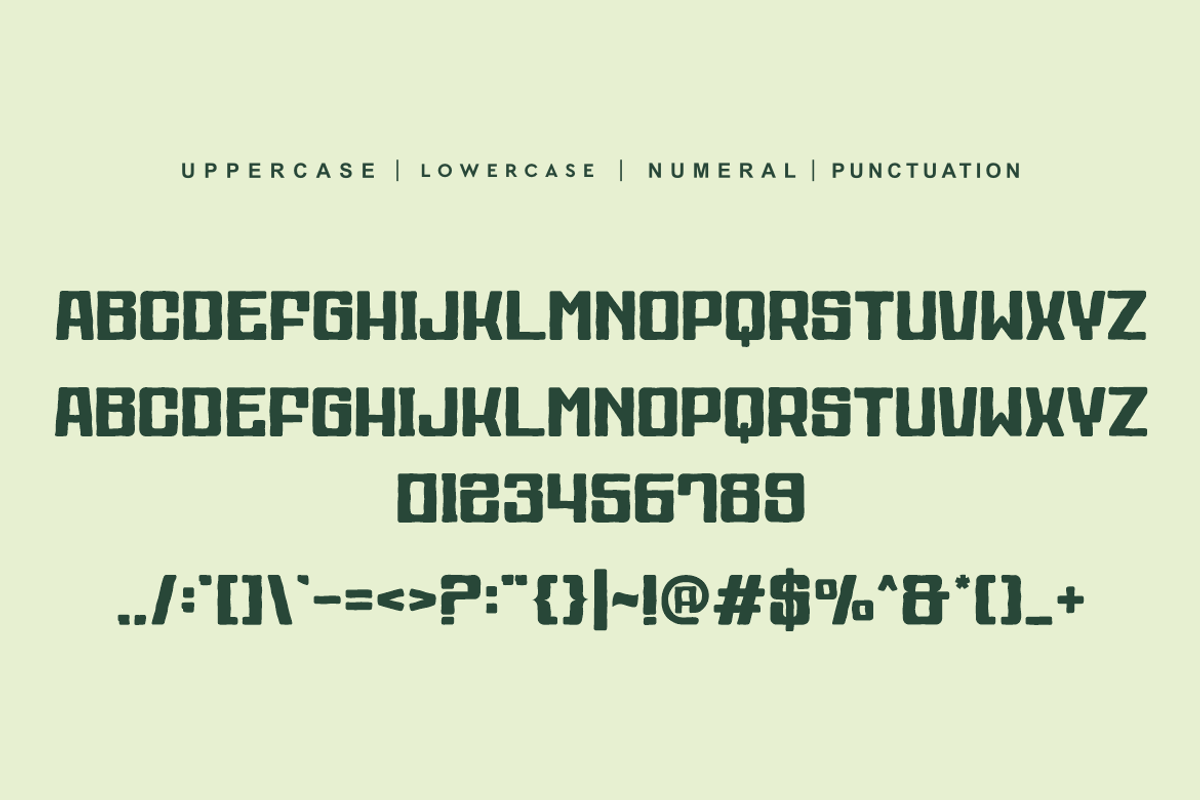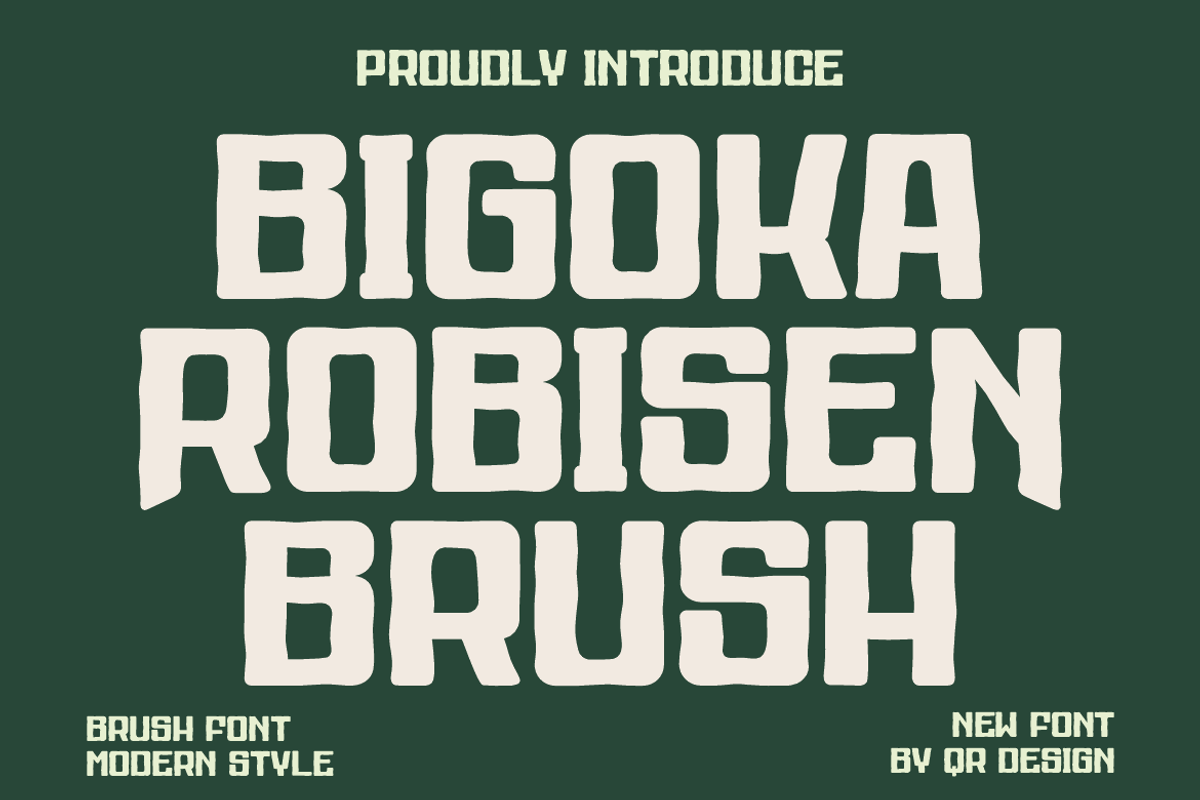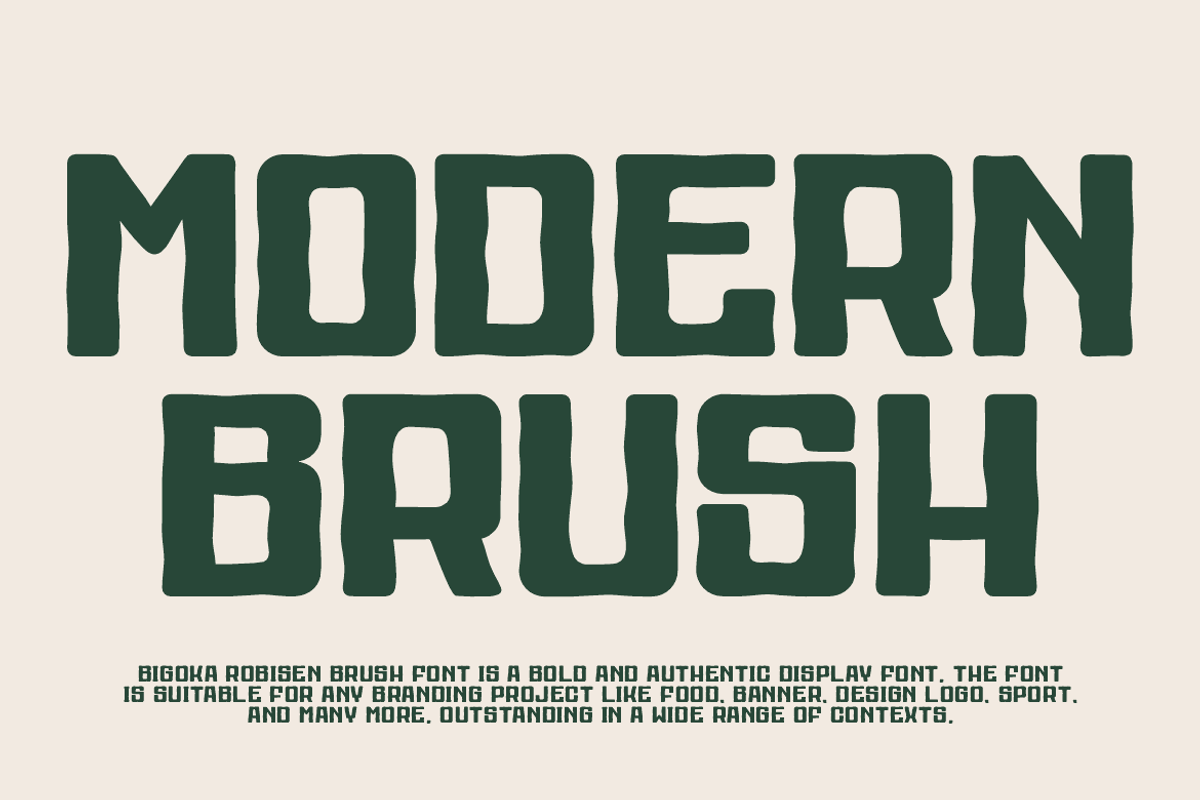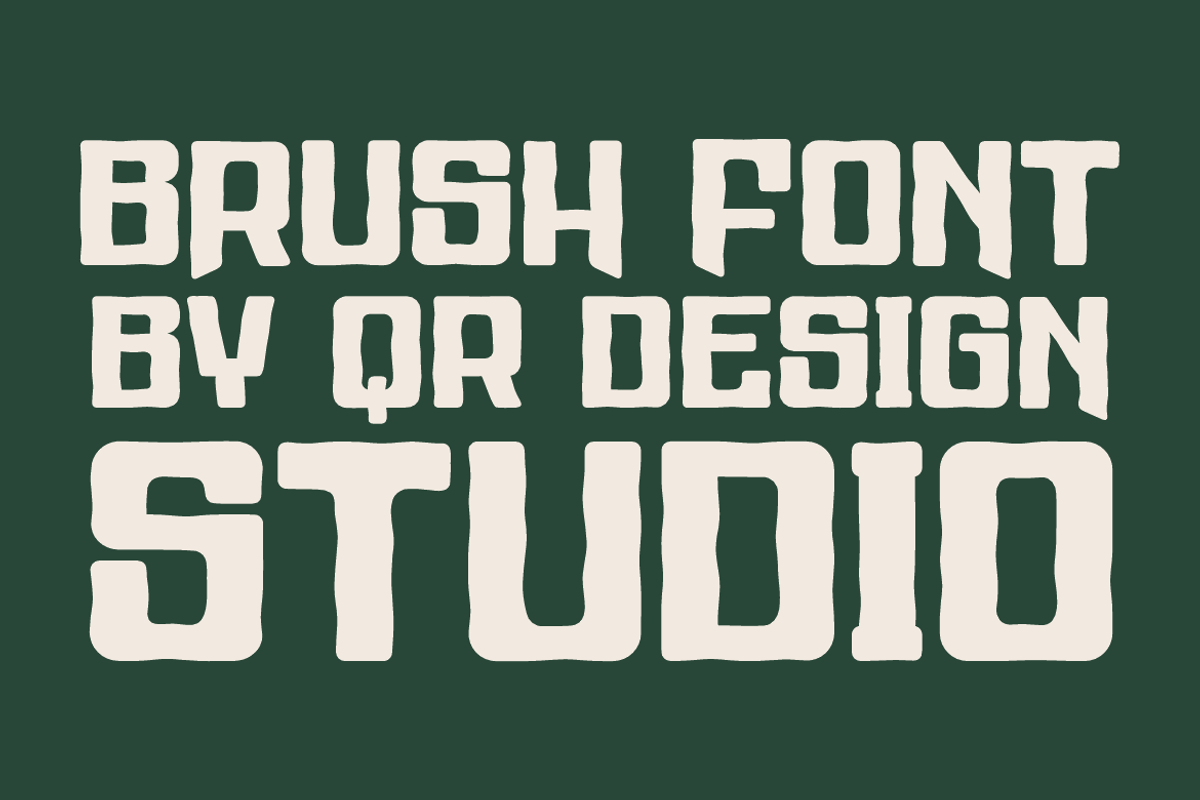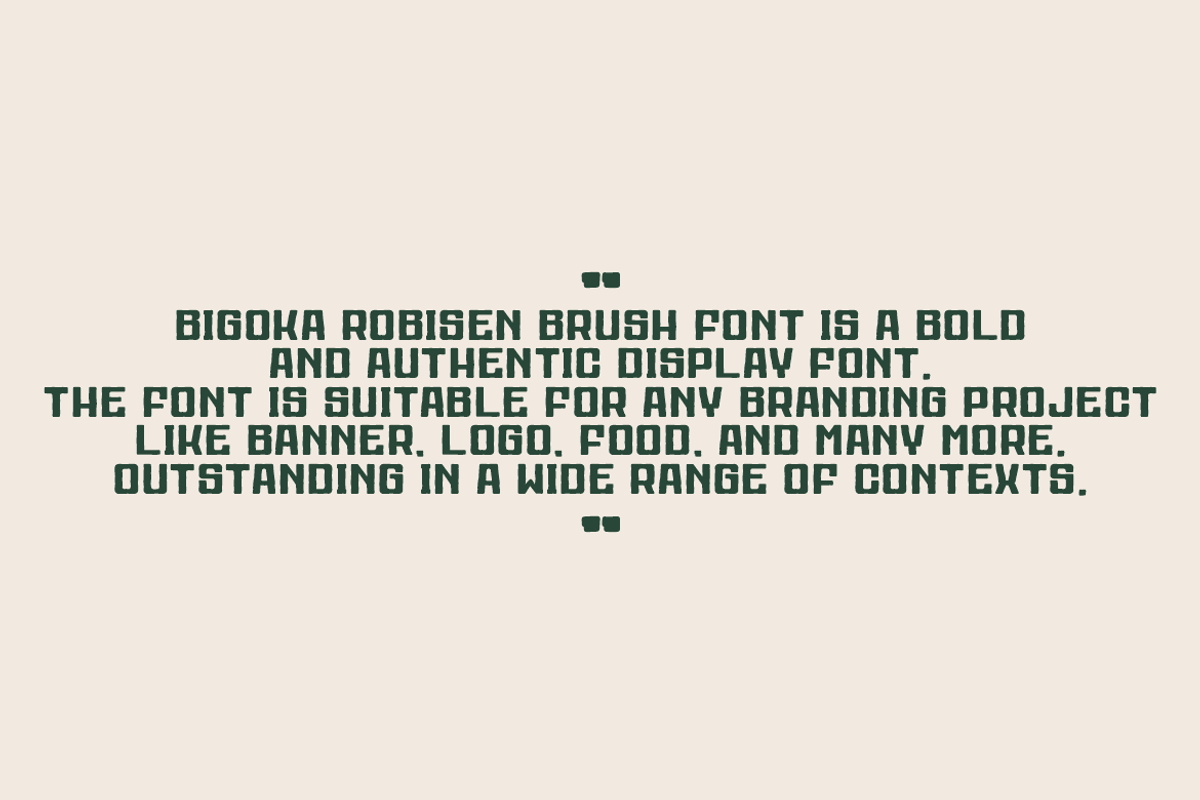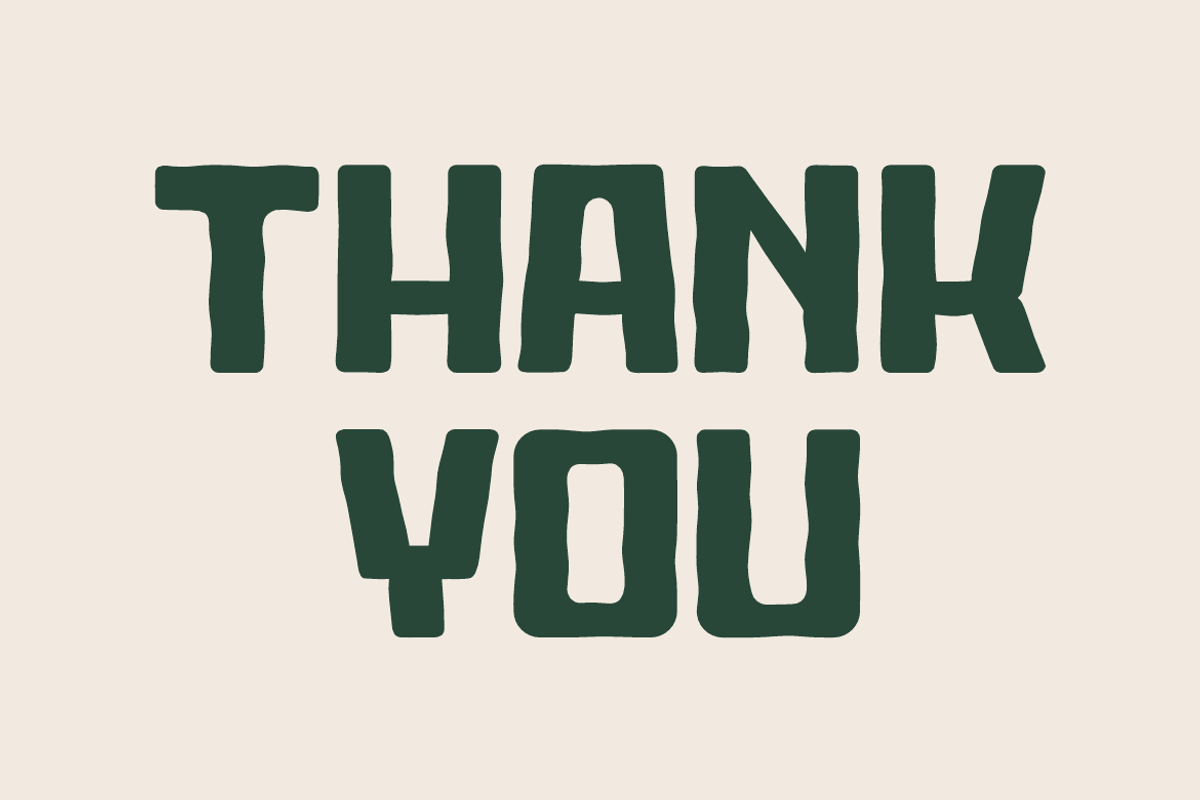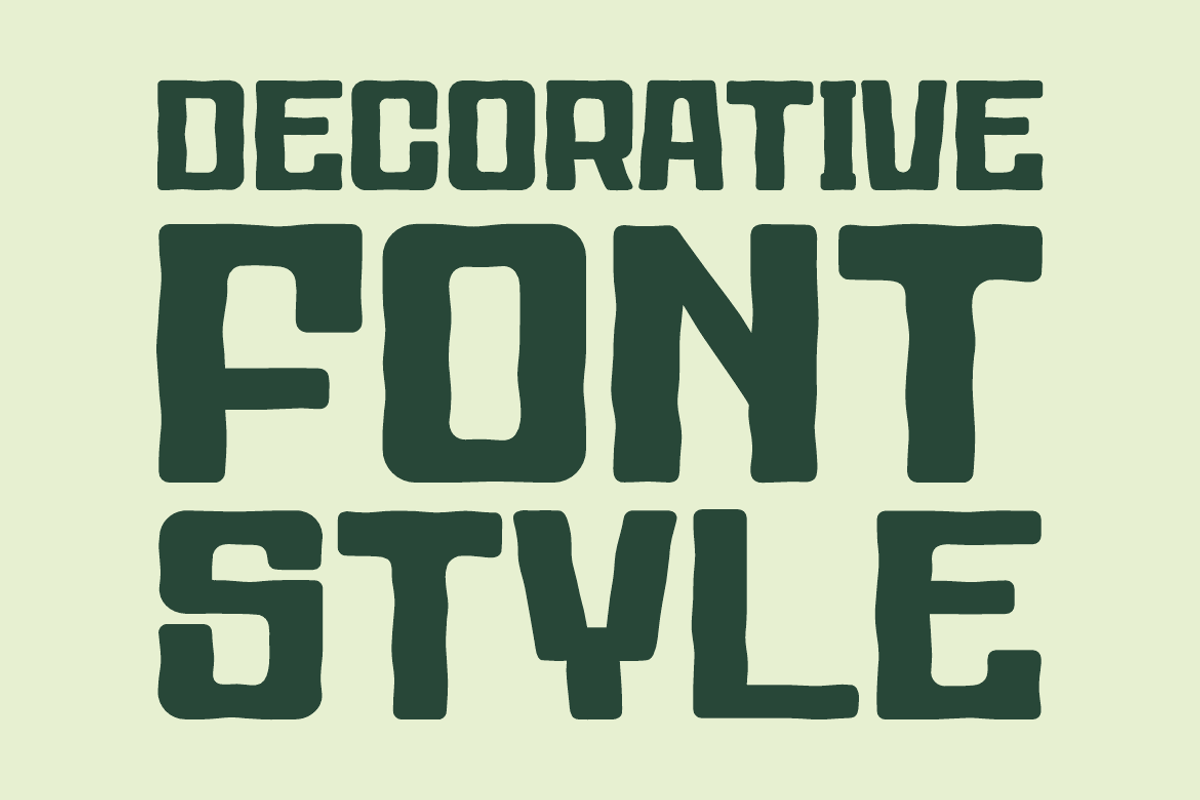
Bigoka Robisen Brush
Bigoka Robisen Brush Font is a bold and authentic display font. The font is suitable for any branding project like logo, sport, food, and many more. Outstanding in a wide range of contexts.